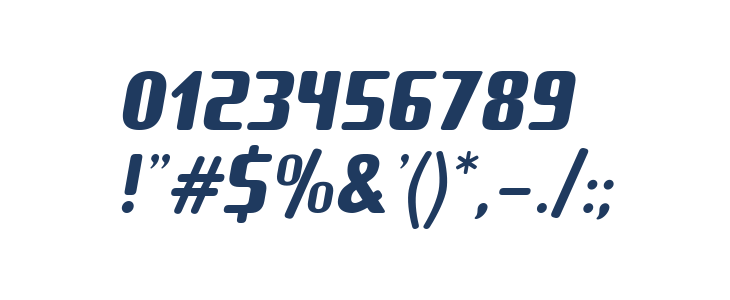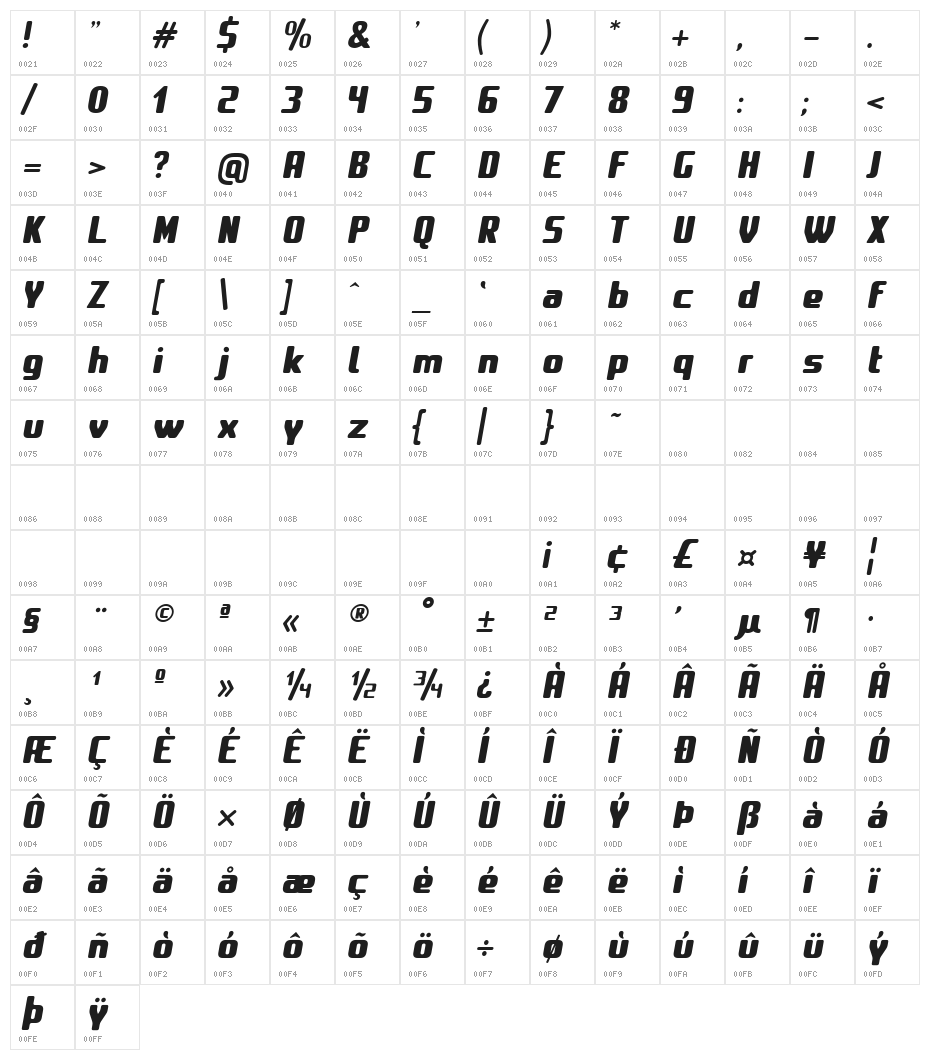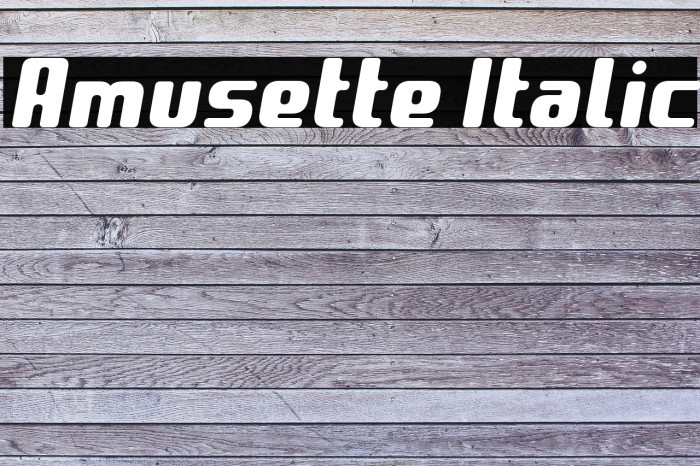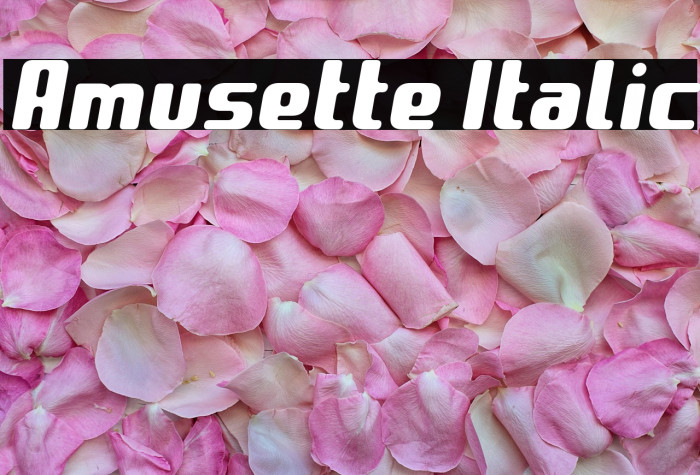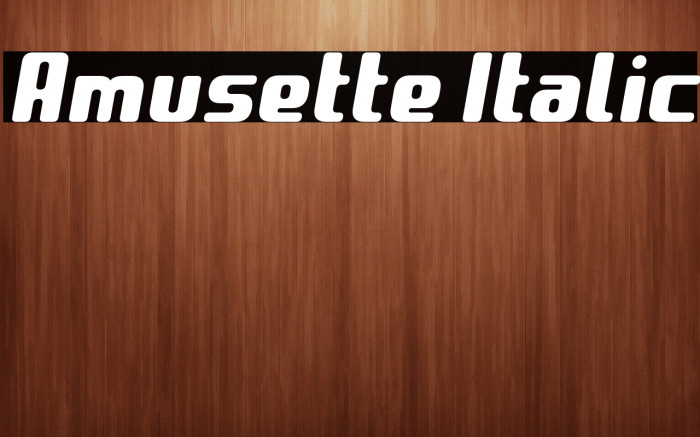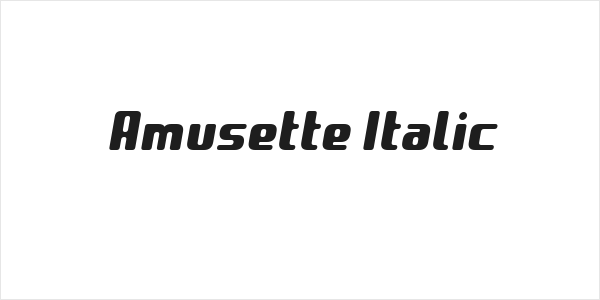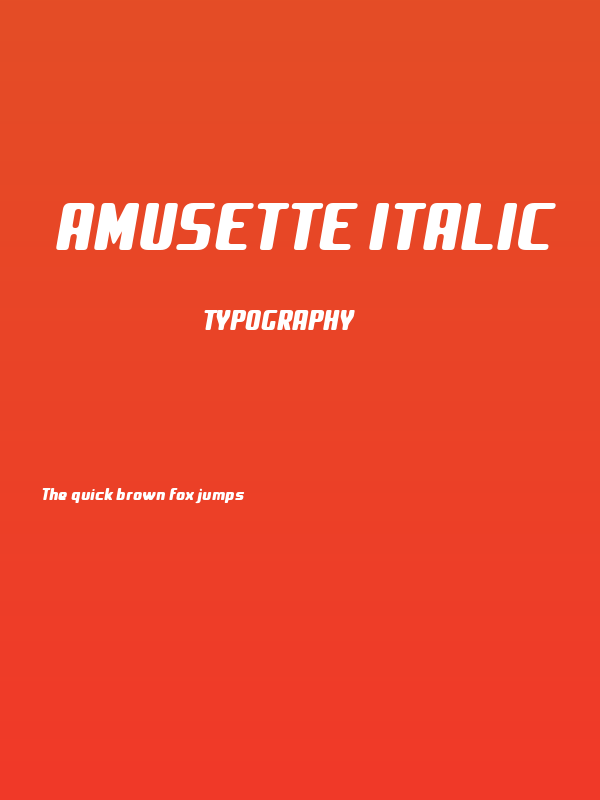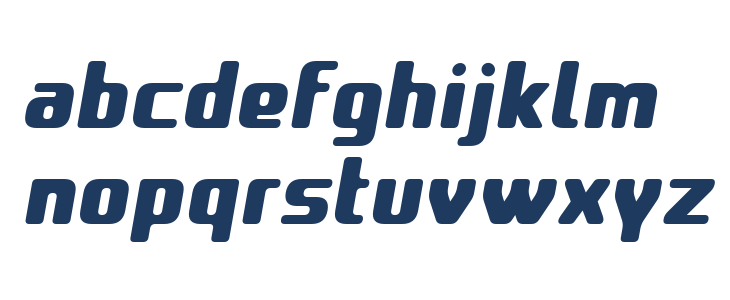
Amusette Italic Font
Amusette Italic Description
This font features a bold and dynamic style with a slight italic slant, giving it a sense of movement and energy. The characters are rounded and smooth, providing a friendly and approachable appearance. The uppercase and lowercase letters maintain a consistent weight, contributing to a uniform look across the text. The numerals and special characters are designed to match the overall style, ensuring cohesion in any design. The font's boldness makes it stand out, while the italic angle adds a touch of elegance and flair.